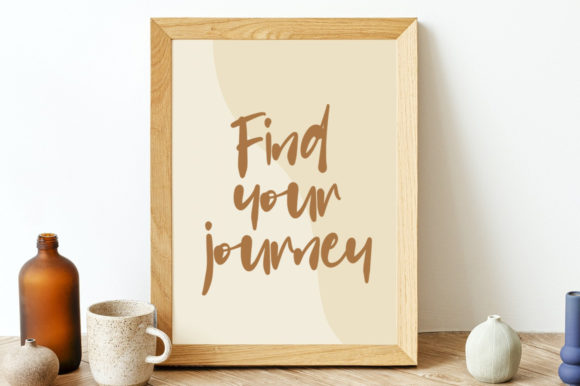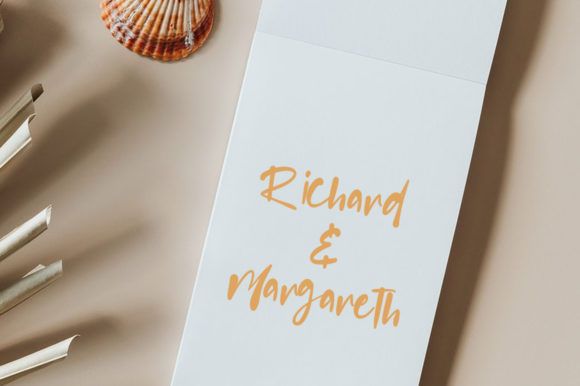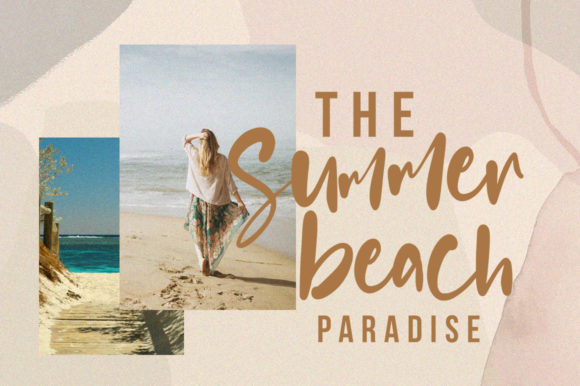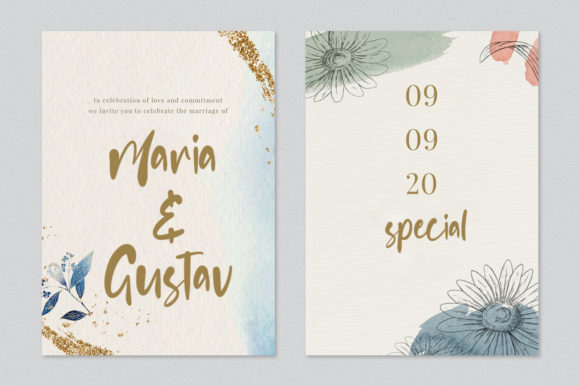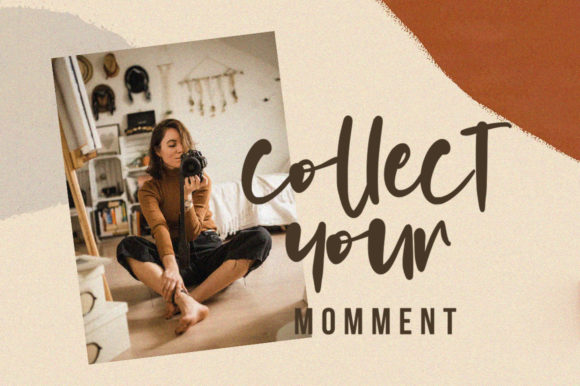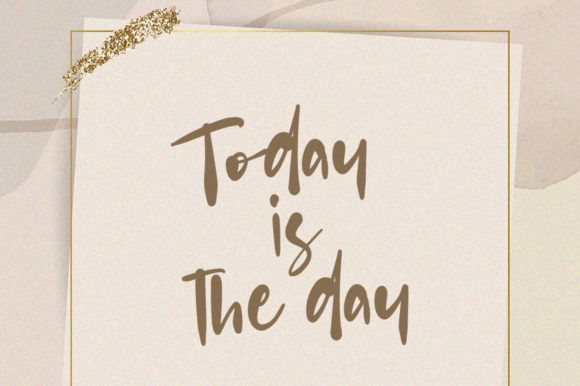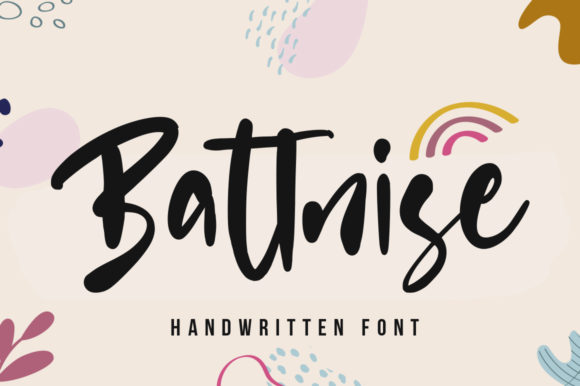
Battnise Font: The Perfect Blend of Clean and Quirky for Your Creative Projects
In the world of typography, fonts play a crucial role in conveying the tone and personality of a brand or project. For designers, crafters, and DIY enthusiasts, finding the right font can be a daunting task. However, if you’re looking for a font that strikes the perfect balance between clean and quirky, look no further than Battnise Font. In this article, we’ll dive into the world of Battnise, exploring its features, uses, and benefits for your logos, branding, social media, and crafty DIY projects.
What is Battnise Font?
Battnise is an authentic brush font that boasts a unique blend of cleanliness and quirkiness. Its authentic brush strokes and subtle imperfections give it a handcrafted feel, making it perfect for projects that require a personal touch. Whether you’re designing a logo, creating social media graphics, or working on a crafty DIY project, Battnise Font is sure to impress.
Key Features of Battnise Font
- Authentic Brush Strokes: Battnise Font features authentic brush strokes that give it a handcrafted feel.
- Clean and Quirky: The font strikes the perfect balance between clean and quirky, making it versatile for various projects.
- High-Quality Design: Battnise Font is designed with high-quality craftsmanship in mind, ensuring that it looks great in any context.
Uses of Battnise Font
Battnise Font is an incredibly versatile font that can be used for a wide range of projects, including:
- Logos and Branding: Create a unique and memorable logo for your brand with Battnise Font.
- Social Media Graphics: Use Battnise Font to create eye-catching social media graphics that stand out from the crowd.
- Crafty DIY Projects: Add a personal touch to your crafty DIY projects, such as handmade cards, invitations, and more.
Benefits of Using Battnise Font
So, why choose Battnise Font for your projects? Here are just a few benefits:
- Unique and Memorable: Battnise Font is sure to make your project stand out from the crowd with its unique and memorable design.
- Versatile: The font is incredibly versatile and can be used for a wide range of projects.
Tips for Using Battnise Font
Here are a few tips for getting the most out of Battnise Font:
- Experiment with Different Sizes: Try out different sizes to see how Battnise Font looks in various contexts.
- Pair with Other Fonts: Experiment with pairing Battnise Font with other fonts to create a unique and interesting look.
- Use for Headings and Titles: Use Battnise Font for headings and titles to add a touch of personality to your project.
In conclusion, Battnise Font is a unique and versatile font that’s perfect for designers, crafters, and DIY enthusiasts. With its authentic brush strokes, clean and quirky design, and high-quality craftsmanship, Battnise Font is sure to make your project stand out from the crowd. Whether you’re working on a logo, social media graphics, or a crafty DIY project, Battnise Font is an excellent choice.